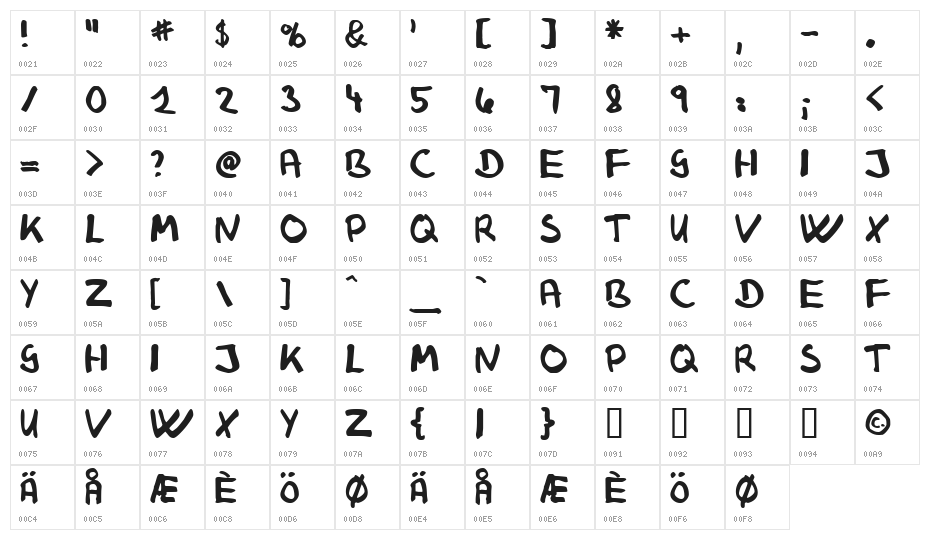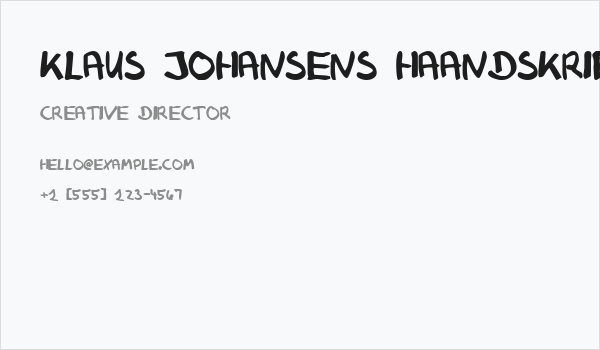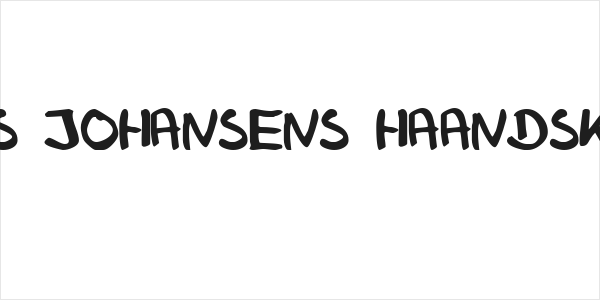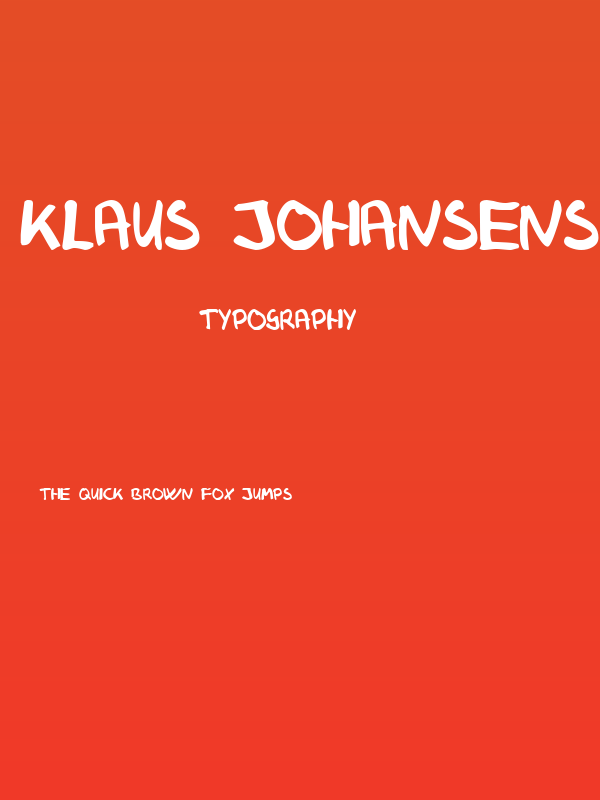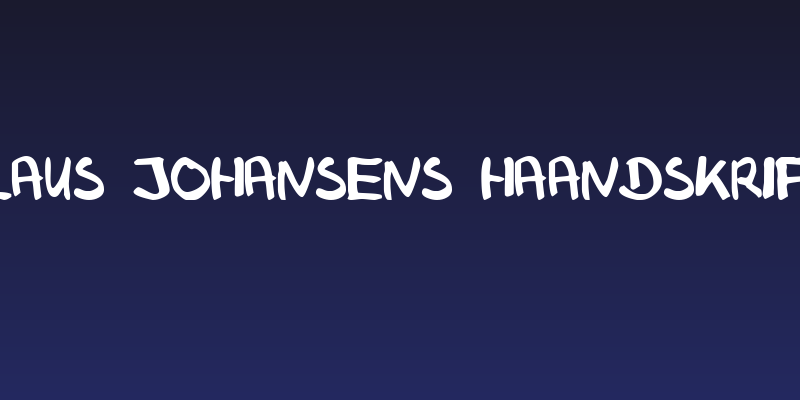
Klaus Johansens haandskrift Font
Klaus Johansens haandskrift Description
This font features a playful and bold handwritten style, characterized by its thick strokes and slightly irregular letterforms. The letters have a casual, informal appearance, reminiscent of a marker or brush pen. The uppercase and lowercase letters maintain a consistent style, with rounded edges and a lively, energetic flow. The numbers and special characters are equally bold, ensuring readability while maintaining the font's unique personality. This font's overall look is dynamic and expressive, making it suitable for projects that require a personal touch.
| Overall Style | Playful, Casual |
| Proposed Projects | Ideal for greeting cards, children's books, playful branding, and social media graphics. |